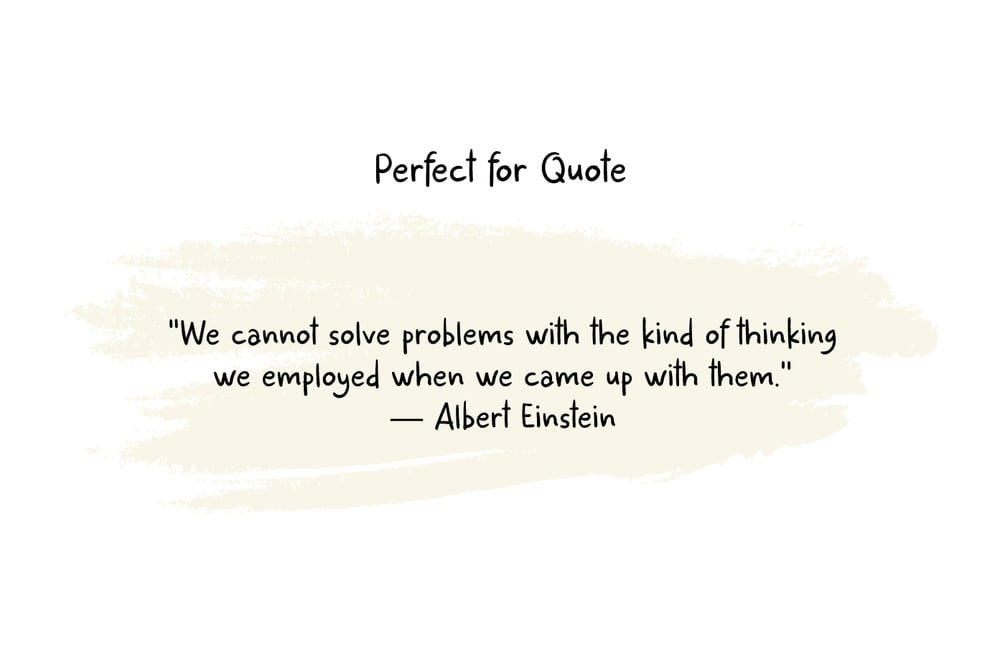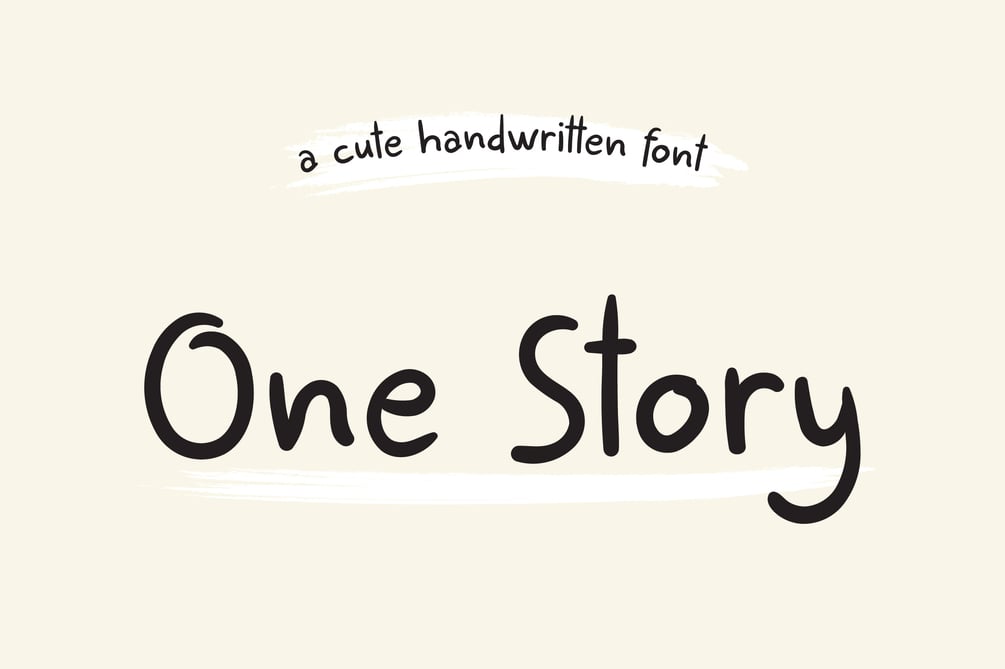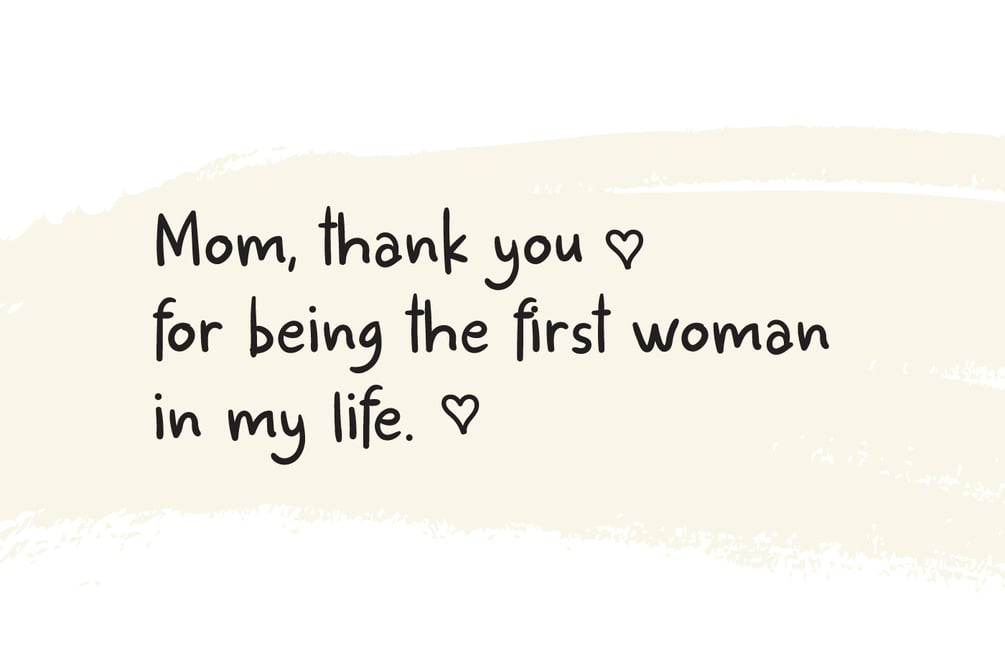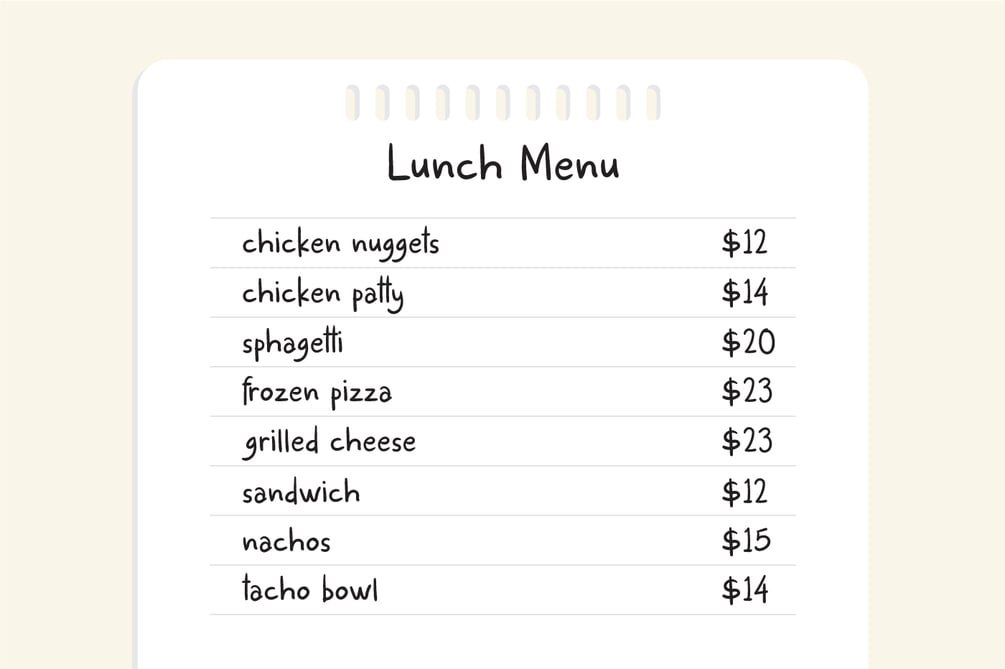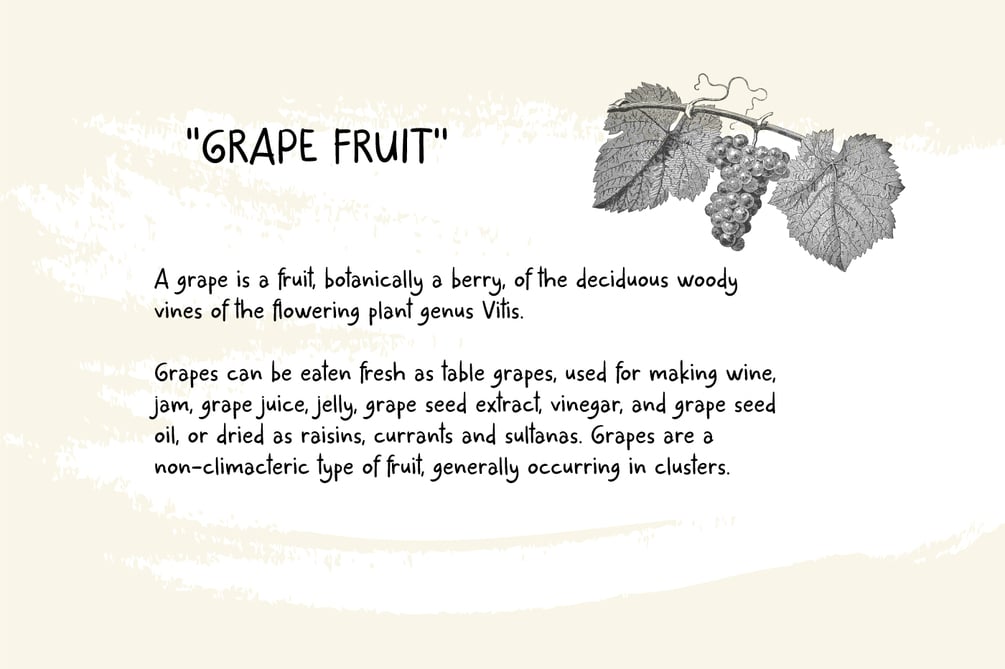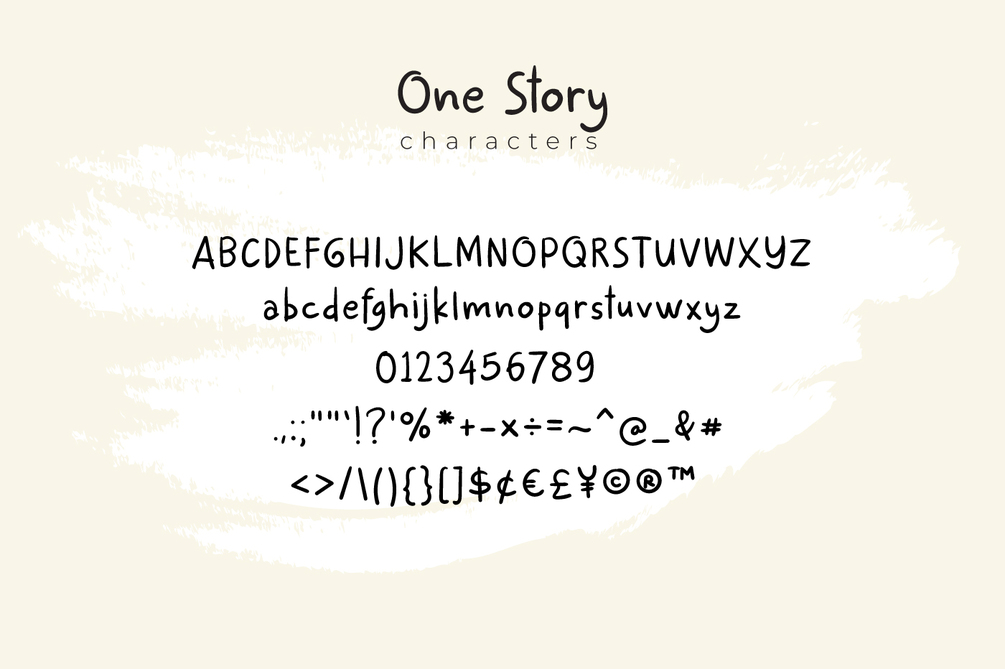
One Story - Cute Handwriting Font
One Story is a cute handwritten font. Perfect for your projects, blog posts, logos, branding, planners, photo albums, decorations, digital planner, invitations, digital bullet journal, greeting cards, merchandise and more.